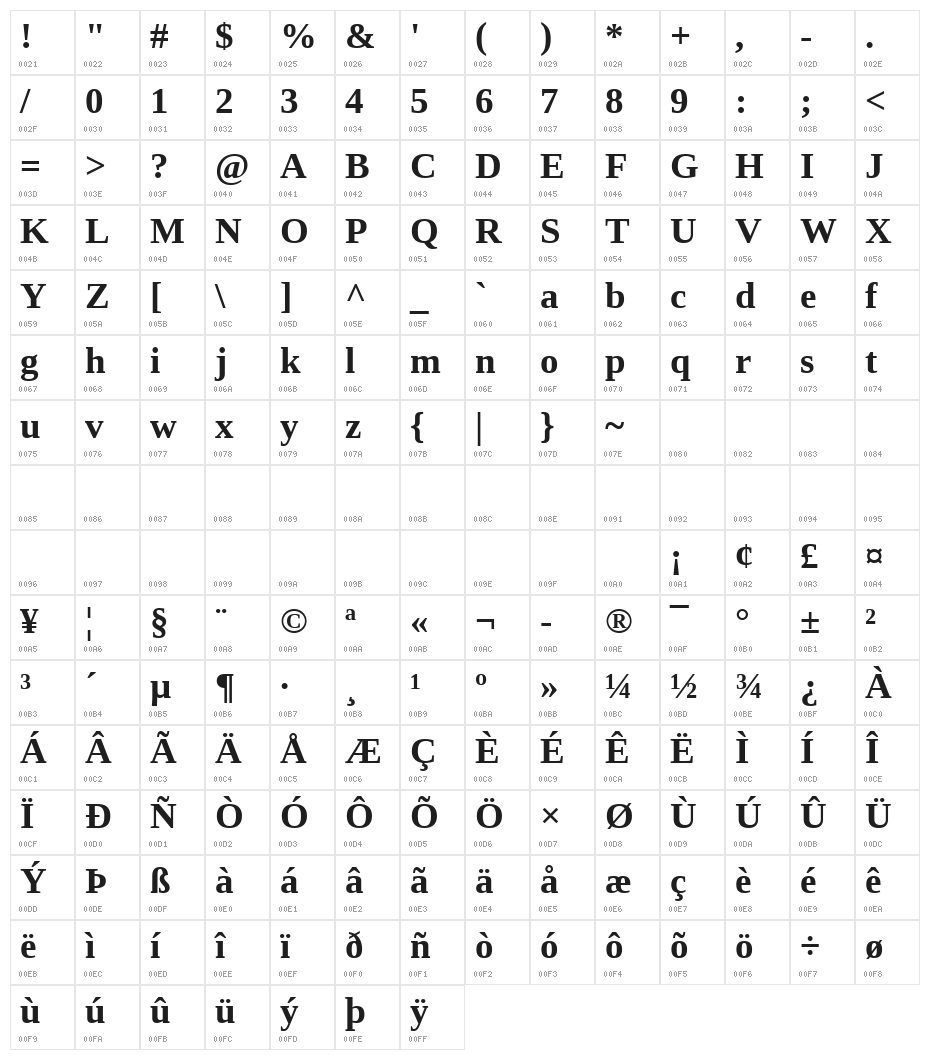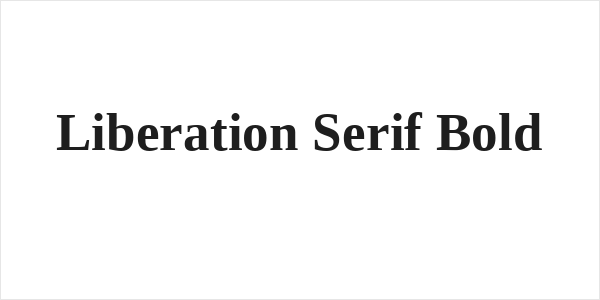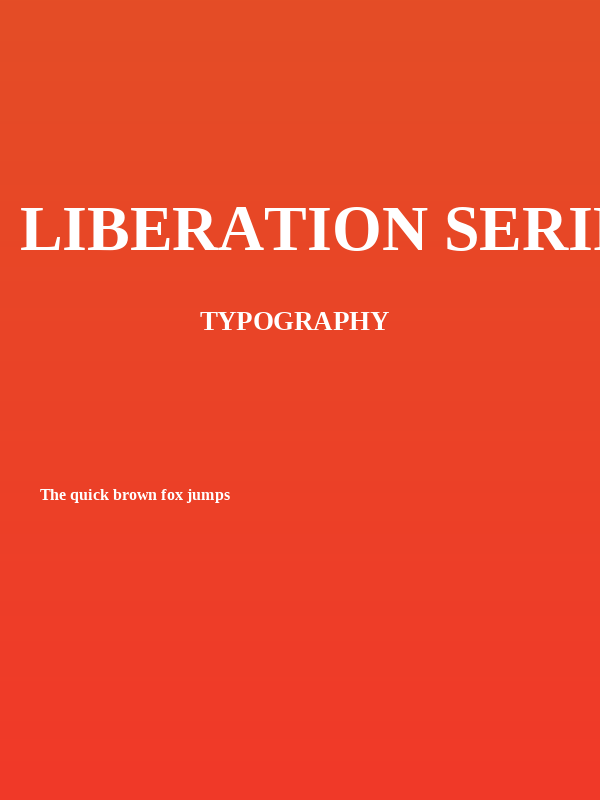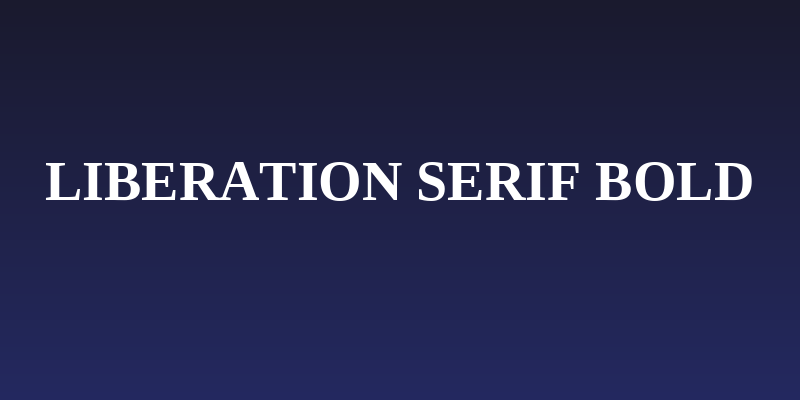
Liberation Serif Bold Font
Liberation Serif Bold Description
This font features a classic serif style with bold, strong strokes that convey a sense of authority and tradition. The serifs are pronounced, adding to the readability and elegance of the typeface. It maintains a balanced proportion between the height and width of the characters, ensuring clarity in both uppercase and lowercase letters. The numerals are distinct and well-defined, making them suitable for a variety of uses. Special characters are included, enhancing the font's versatility. The overall design is timeless, making it suitable for both digital and print media.
| Proposed Projects | Ideal for book covers, formal invitations, editorial headlines, and corporate branding. |